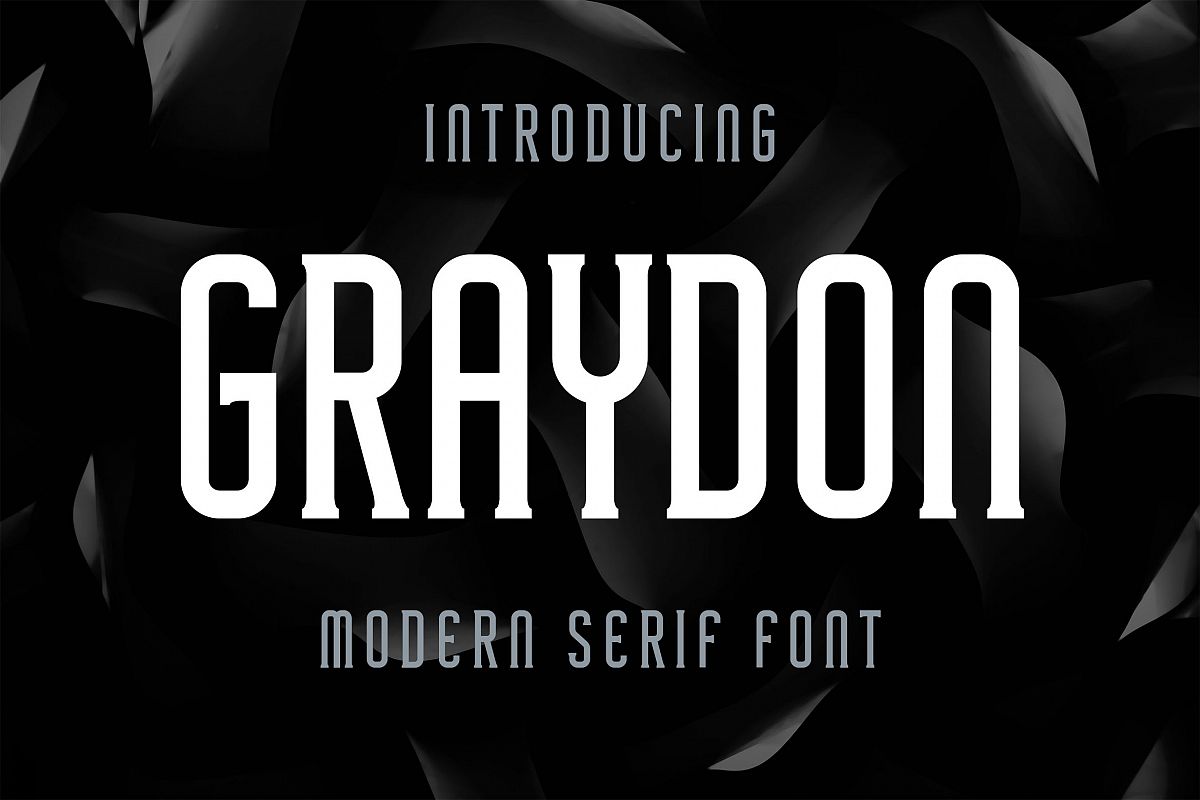
Graydon - Modern Serif Font example image 1
Graydon - Modern Serif Font
Introducing of our new product the name is Graydon Modern Serif Font. Graydon good for logotype, label, badge, headline, signature, packaging and any more.